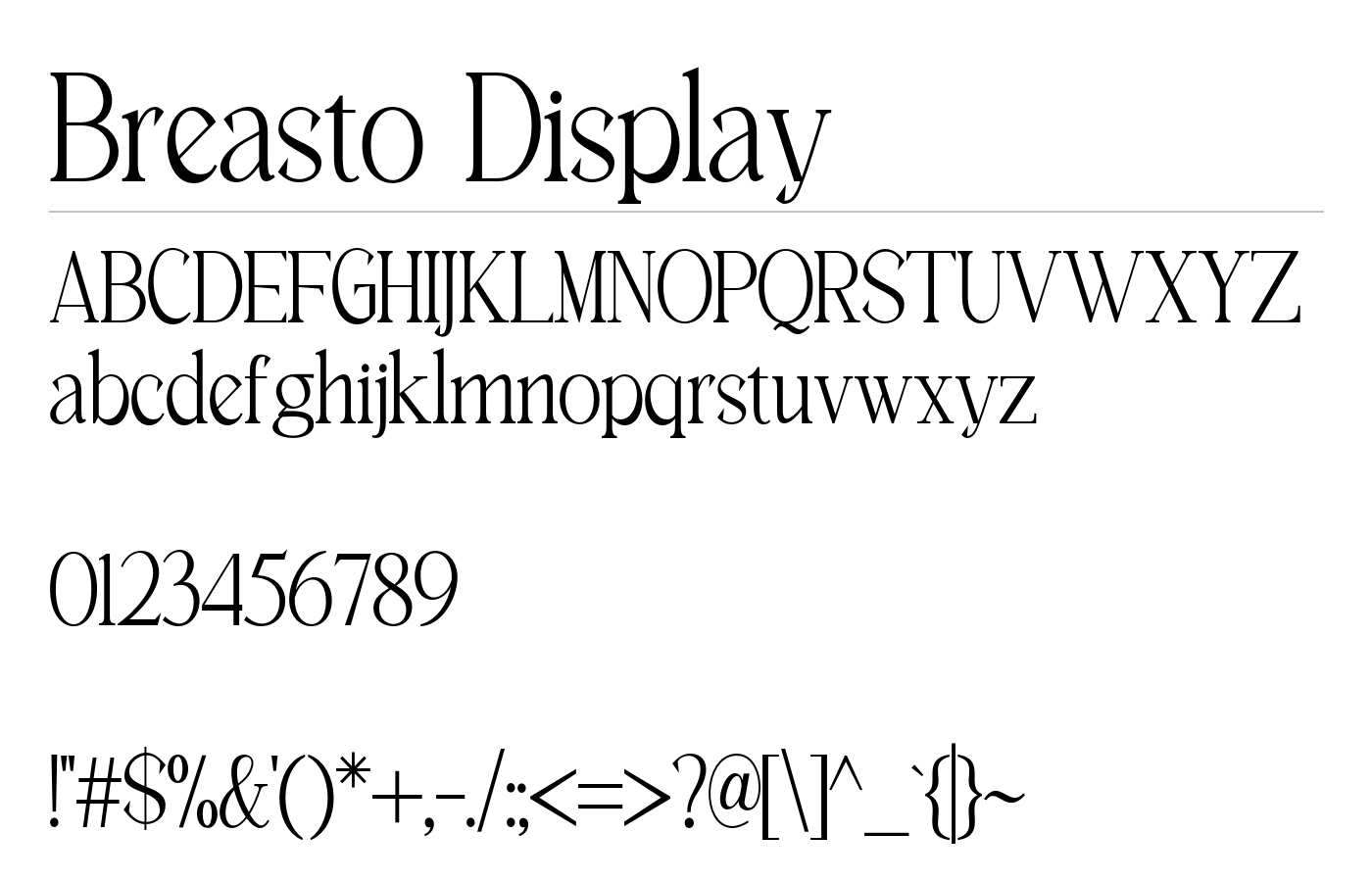
Breasto Display is an elegant serif font with a refined, upscale feel, characterized by its high contrast between thick and thin strokes and distinctively sharp, bracketed serifs. Its tall, narrow letterforms and unique details like the single-story 'g' and stylish 'Q' tail give it a sophisticated, slightly vintage personality, making it ideal for luxury branding, editorial headlines, and fashion packaging where an air of exclusivity and grace is desired. This font works best in large sizes to showcase its delicate features and stylish flair.
Breasto Display Font
About Breasto Display Font
| Designer | Tebaltipisstd_Ferdiansyah_TTS |